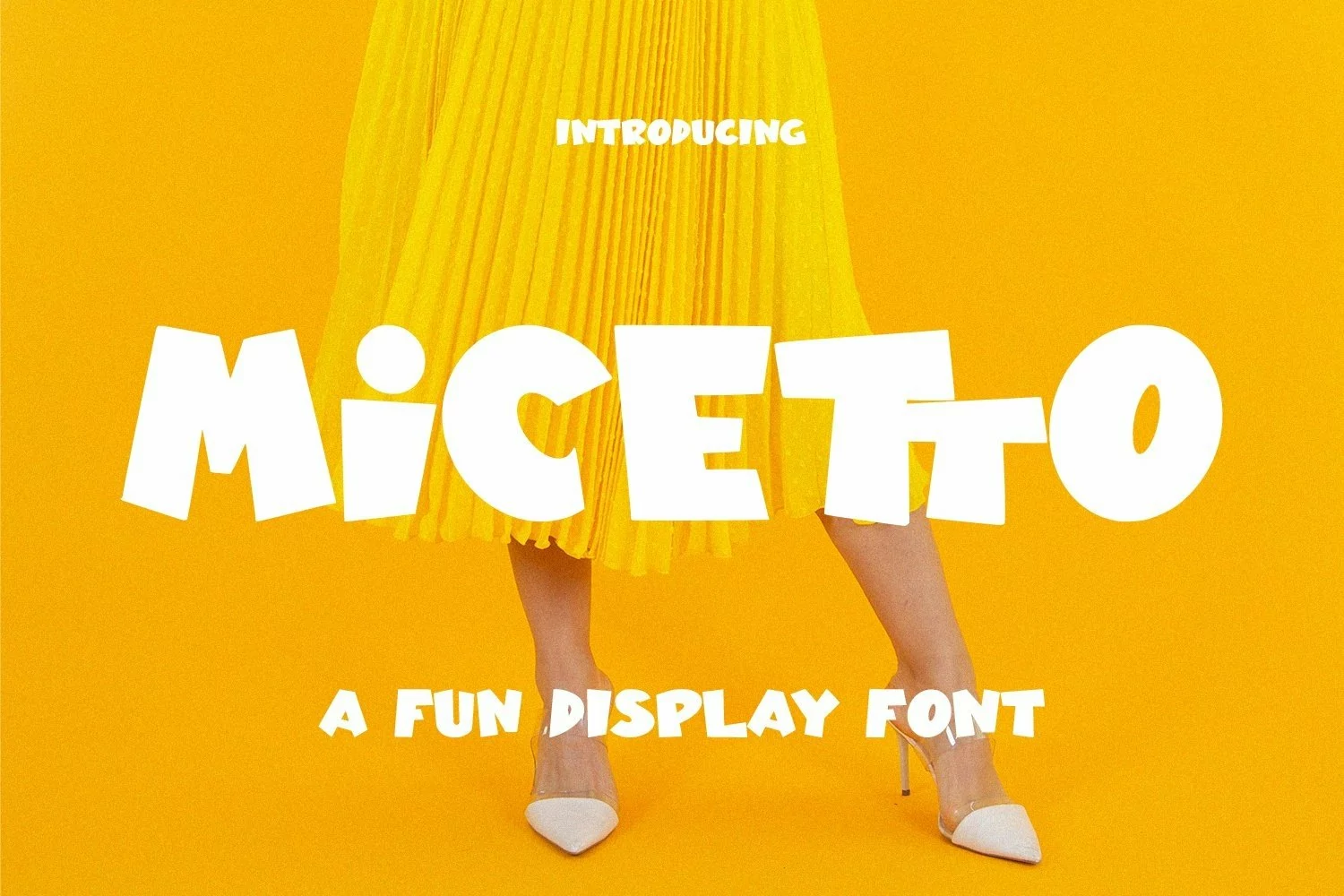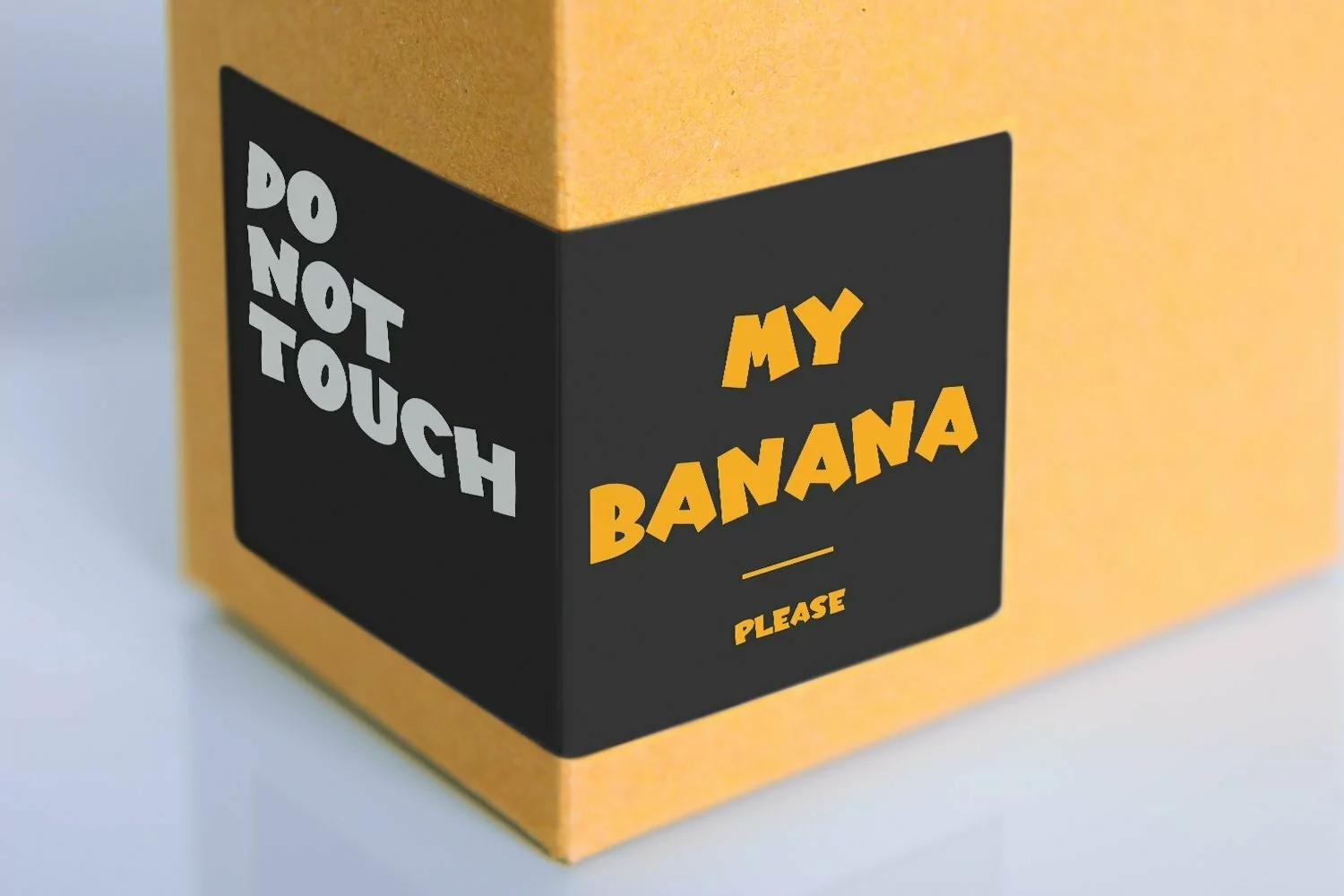
Micetto - Fun Display Font that contain lowercase, uppercase, symbol, and also support multi language. There’s a lot ligatures in this font. This Font also comes with ligatures, alternates and many more. this font suitable for fashion, branding, catalog and other design what you want.